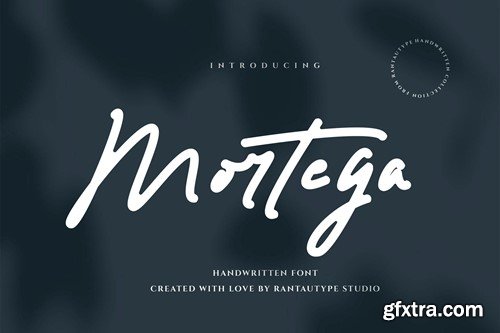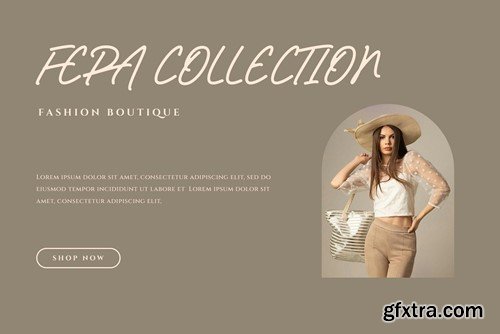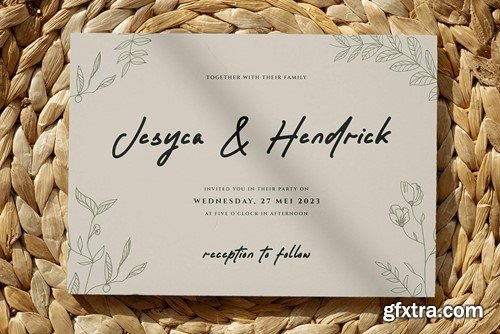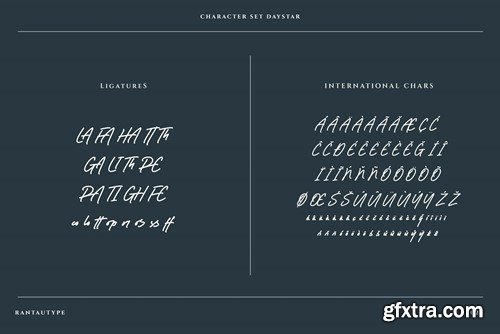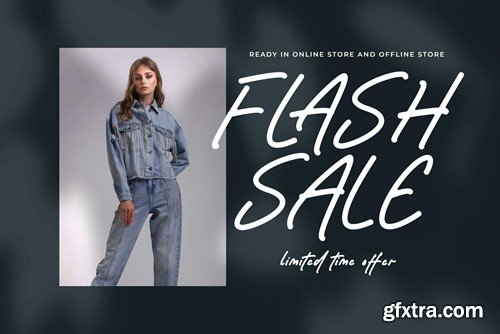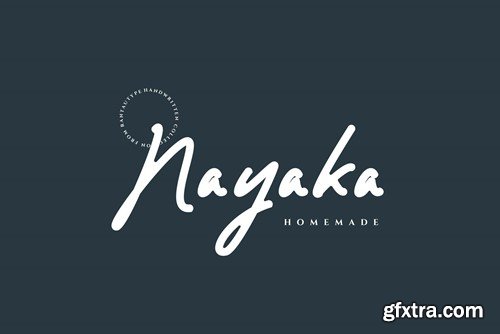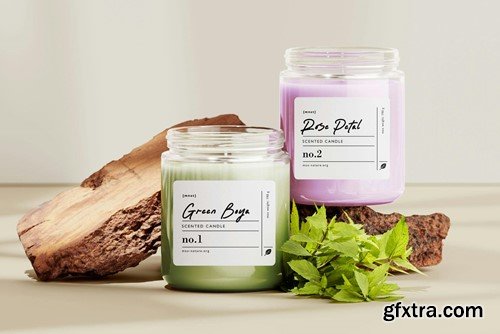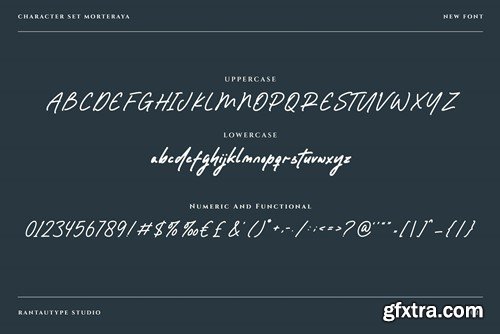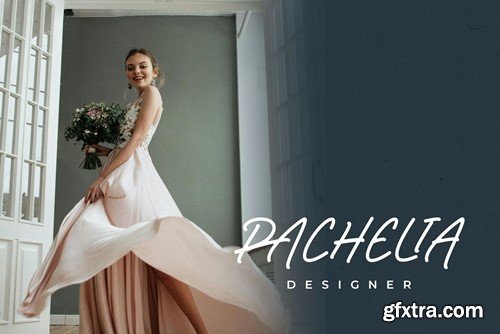
Mortega Handwritten Font EA WTTT
Mortega is a natural handwritten font with stylish curve. Stylish curve make mortega font look modern and make your design stand out. Sergia come with alternate, ligature and already support multingual accent character. Mortega is perfectly choice for any creative endeavor, chic, lifestyle design such as logos, title, watermark on photography, cover, branding, display and magazine, wedding event, corporate brand, quotes, album cover, business card, business project and many other design project with handwritten taste. What you have: Fonts include multilingual support for: Afrikaans, Albanian, Asu, Basque, Bemba, Bena, Breton, Chiga, Cornish, Dutch, English, Estonian, Filipino, Finnish, Friulian, Galician, Gusii, Indonesian, Irish, Italian, Kabuverdianu, Kalenjin, Kinyarwanda, Luo, Luxembourgish, Luyia, Machame, Makhuwa-Meetto, Makonde, Malagasy, Manx, Morisyen, North, Ndebele, Nyankole, Oromo, Portuguese, Quechua, Romansh, Rombo, Rundi, Rwa, Samburu, Sango, Sangu, Scottish, Gaelic, Sena, Shambala, Shona, Soga, Somali, Spanish, Swahili, Swedish, Swiss, German. Thank you for your purchase! Hope you enjoy with our font!